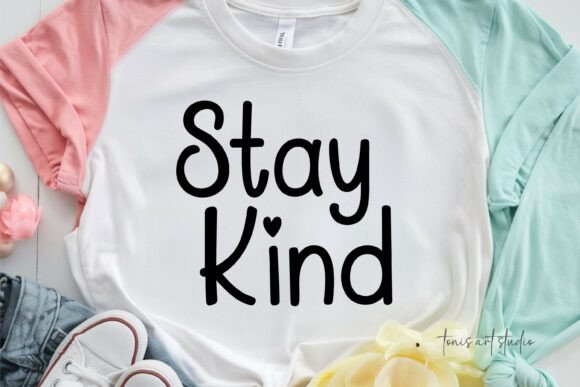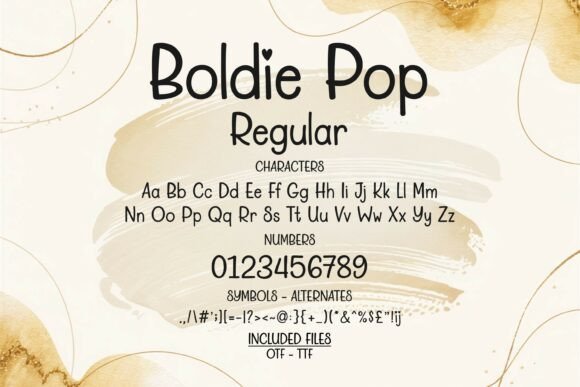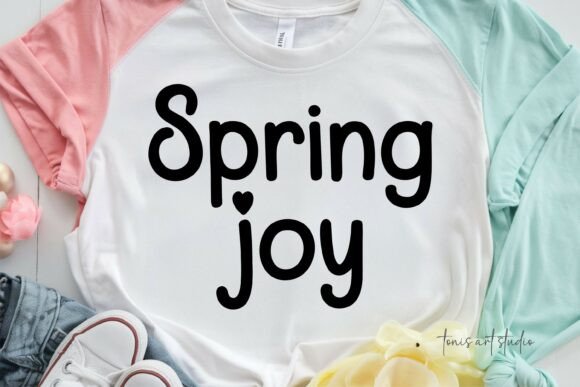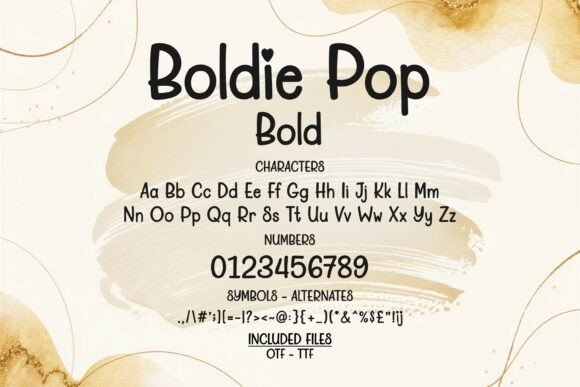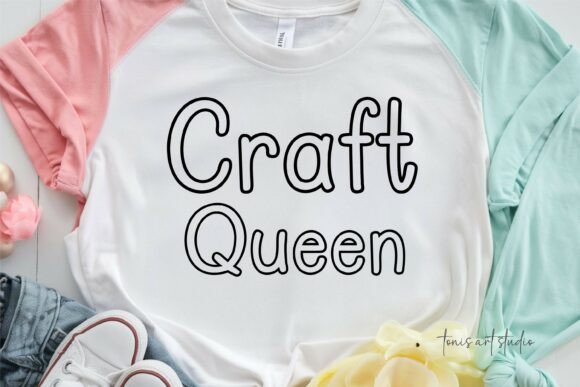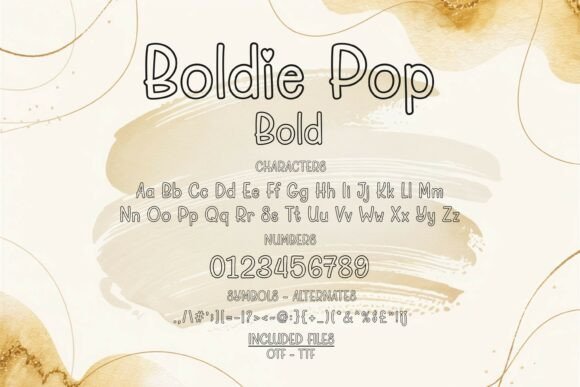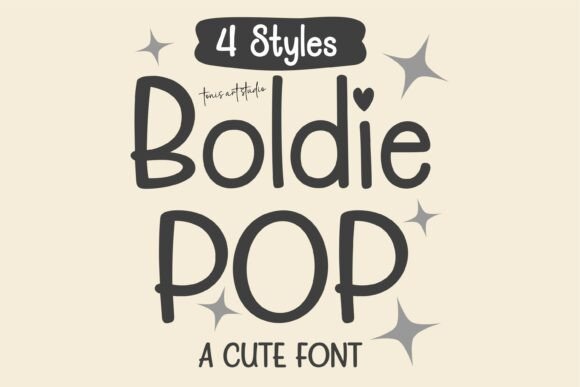
Introducing Boldie Pop Bundle Font: Add a Pinch of Cuteness to Your Designs
Are you tired of using the same old fonts in your designs? Look no further! Boldie Pop Bundle Font is here to bring a smile to your face and a dash of whimsy to your creations. This delightful font collection is handcrafted with love and features four charming styles ā Regular, Bold, Line, and Outline. With its bulbous contours and adorable heart-shaped alternates for āiā and ājā, Boldie Pop is sure to inject sweetness into any design it graces.
A Font Collection that Spreads Joy
Boldie Pop’s cheerful energy makes it perfect for a wide range of projects, from children’s works and birthday invites to nursery decorations and digital crafts. The font’s warm and playful personality is sure to captivate your audience and leave a lasting impression. Whether you’re a crafter, educator, or designer, Boldie Pop is an ideal choice for anyone looking to add a pinch of cuteness to their design endeavors.
Key Features of Boldie Pop Bundle Font
- Four Delightful Styles: Regular, Bold, Line, and Outline ā each style is carefully crafted to bring a unique charm to your designs.
- Handcrafted with Love: Every letter and detail is meticulously designed to ensure a whimsical and playful feel.
- Heart-Shaped Alternates: The adorable heart-shaped alternates for āiā and ājā add an extra touch of sweetness to your designs.
Boldie Pop’s versatility knows no bounds! Here are some design ideas to get you started:
- Children’s Works: Create engaging and fun content for kids with Boldie Pop’s playful font.
- Birthday Invites: Make your party invitations stand out with Boldie Pop’s cheerful and colorful font.
- Nursery Decorations: Add a touch of whimsy to nursery walls and furniture with Boldie Pop’s adorable font.
- Sublimation Designs: Create stunning sublimation designs for t-shirts, mugs, and more with Boldie Pop’s bold and playful font.
- Educator Printables: Make learning fun with Boldie Pop’s engaging font, perfect for educational materials and worksheets.
- Digital Crafts: Use Boldie Pop to create unique digital crafts, such as printable art, planners, and journals.
Why Choose Boldie Pop Bundle Font?
With Boldie Pop, you can:
- Add a Touch of Whimsy: Bring a dash of playfulness to your designs with Boldie Pop’s unique font styles.
- Stand Out: Make your designs stand out from the crowd with Boldie Pop’s bold and cheerful font.
In conclusion, Boldie Pop Bundle Font is the perfect addition to any designer’s or crafter’s toolkit. With its four delightful styles, handcrafted design, and multi-platform compatibility, Boldie Pop is sure to bring joy and whimsy to your designs. So why wait? Get your hands on Boldie Pop today and start creating designs that are as sweet as they are stunning!